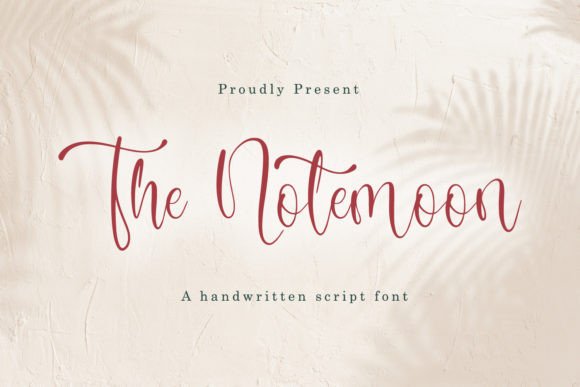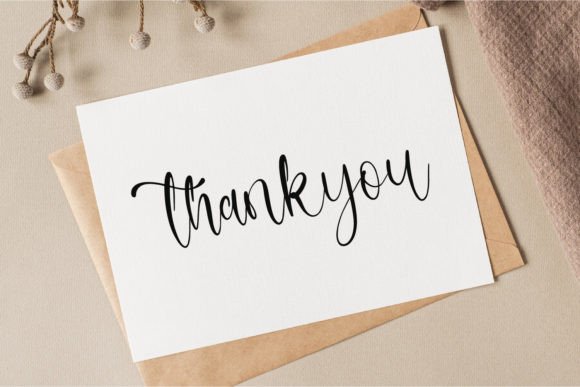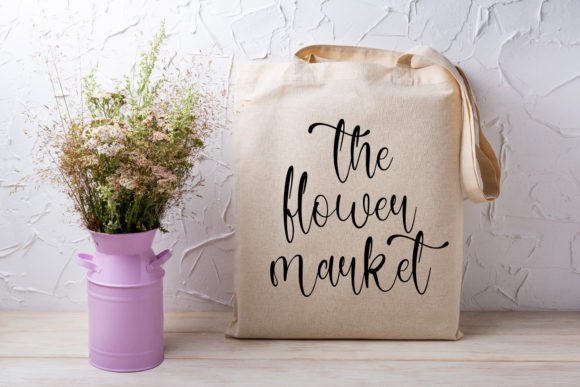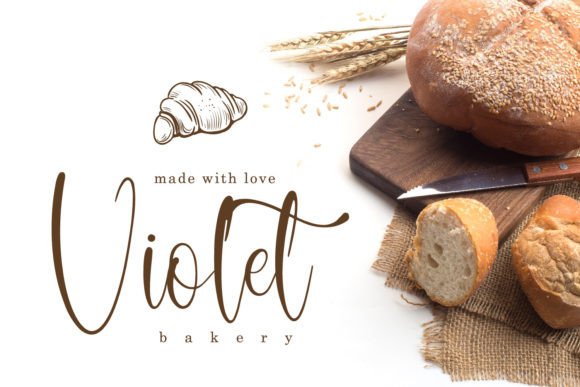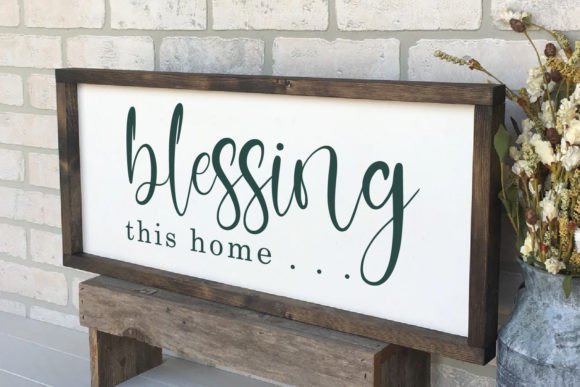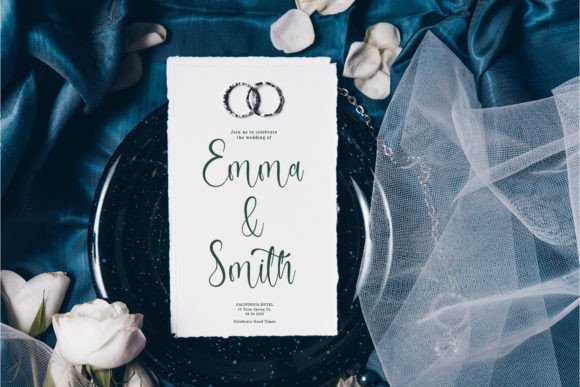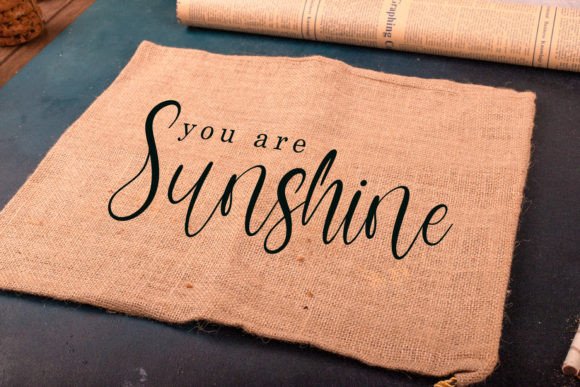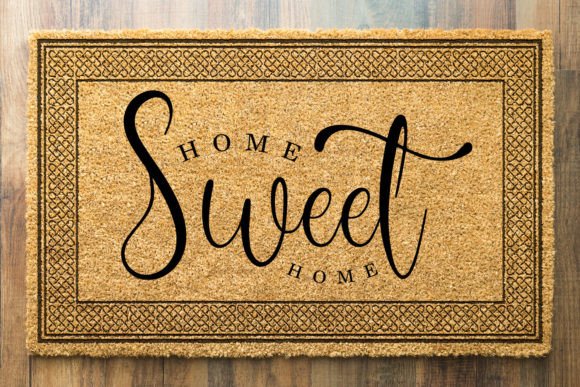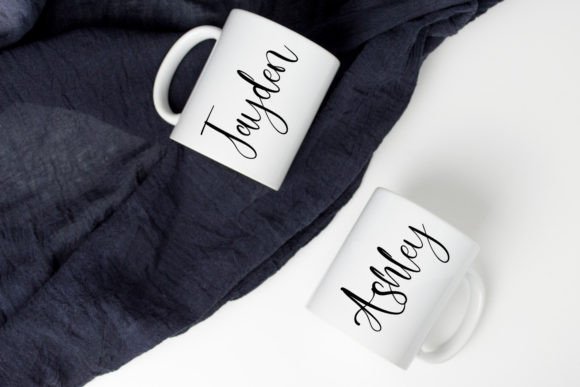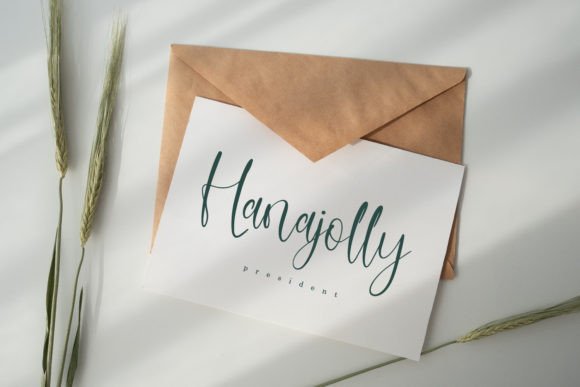
The Notemoon Font
A Dazzling and Elegant Script Typeface
The Notemoon is a stunning script font designed to captivate and inspire. With its elegant, flowing characters and finely crafted details, this font adds a touch of sophistication to any project. Whether you’re designing for personal or professional use, The Notemoon helps your work look polished and unforgettable.
Its graceful curves and balanced shapes make every letter feel like a work of art.
Perfect for Invitations and Special Events
The Notemoon is an excellent choice for wedding invitations, save-the-date cards, and event programs. Its refined style creates an atmosphere of elegance and celebration.
You can also use it for greeting cards, thank-you notes, and announcements. The intricate script adds warmth and personality, making each message feel heartfelt and special.
Pair it with delicate illustrations or subtle borders to complete the look and create a cohesive, luxurious feel.
Ideal for Logos, Branding, and Packaging
The Notemoon shines in professional settings too. Use it to design logos that feel timeless and premium. Its elegant lines work beautifully for luxury brands, boutiques, and creative businesses.
On packaging and labels, The Notemoon draws attention while maintaining a clean, upscale look. From beauty products to handmade goods, this font helps your brand stand out in the best way.
It’s also perfect for business cards and stationery. The graceful script makes every detail feel refined and intentional.
Clear, Beautiful, and Readable
Despite its detailed design, The Notemoon remains clear and legible in various sizes. The thoughtful spacing and smooth connections between letters keep your text easy to read while maintaining its sophisticated appearance.
To create a modern balance, pair The Notemoon with a simple sans-serif or serif font. Use the script for main headings and the supporting font for smaller text. This combination keeps your designs elegant and organized.
Tips for Stunning Designs
For the best results, use soft, neutral backgrounds that let The Notemoon’s intricate details shine. Shades like ivory, blush, or pale gray create a calm canvas that highlights the elegant script.
Keep layouts clean and uncluttered by using plenty of white space around your text. This helps the letters breathe and makes your design feel more luxurious.
Add small icons, flourishes, or line art to enhance the composition without overwhelming it.
The Notemoon is perfect for projects that need a refined and graceful touch.